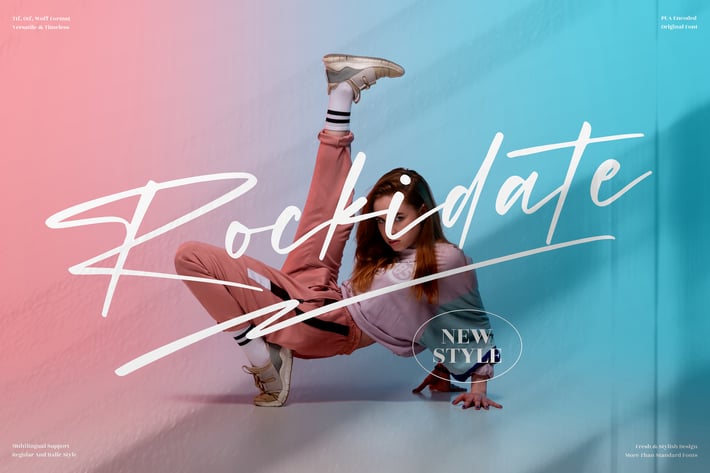
Rockidate Signature Font
Rockidate Signature Font is a stylish and modern handwritten signature typeface designed to bring elegance and personality to your creative projects. With smooth curves and flowing strokes, this font is perfect for adding a touch of sophistication to branding and design works. Whether you are working on logos, wedding invitations, personal branding, social media posts, or editorial designs, Rockidate delivers a versatile and timeless aesthetic. Its signature style makes it ideal for both digital and printed designs, ensuring your work stands out with confidence and charm.
+ Elegant handwritten signature style
+ Uppercase & lowercase letters
+ Multilingual support
+ Smooth flowing ligatures
+ Perfect balance of modern and timeless design
+ Branding and logo design
+ Wedding invitations
+ Social media graphics
+ Personal projects
+ Editorial and magazine design
+ Fashion and lifestyle content
Add timeless elegance and signature style to your designs with Rockidate Font.